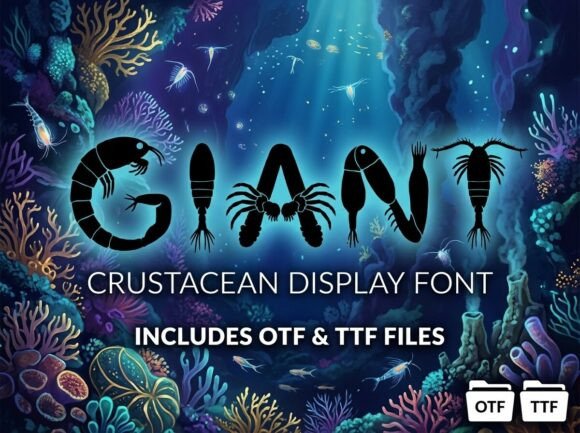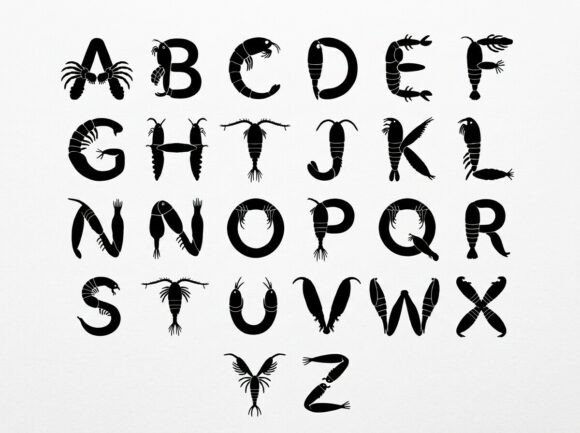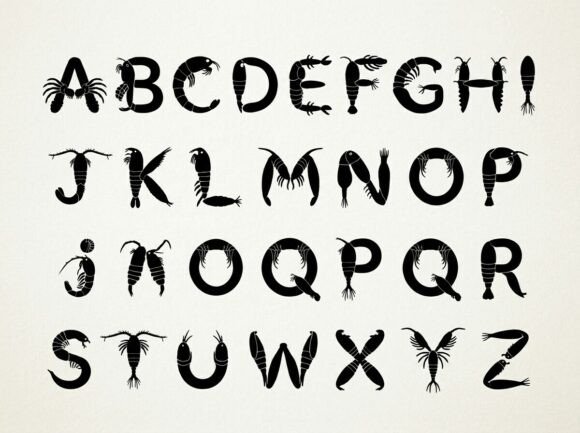
The Giant Font: A Decorative Display Font to Elevate Your Designs
Have you ever been working on a project, pouring your heart and soul into every detail, only to get stuck on one thing: the font? I remember a particularly frustrating experience when I was designing a logo for a client. I wanted something bold, eye-catching, and unique, but every font I tried seemed to scream “boring” or “overused.” That’s when I stumbled upon the Giant Font, and it changed the game.
This stunning decorative display font is designed to be the center of attention, and for good reason. With its unique artistic elements and strong visual personality, it’s perfect for creators who want to break away from the ordinary. In this article, we’ll dive into the world of Giant Font, exploring its features, uses, and some practical tips on how to make the most of it.
- ✅ Unique and artistic design that’s sure to turn heads
- ✅ Versatile enough for bold headlines, artistic logos, and creative packaging
- ✅ Maintains a professional and polished finish, even at large sizes
A Few Quirks to Keep in Mind ⚠️
While the Giant Font is an amazing tool, it’s not without its limitations. Here are a few things to keep in mind:
- 🤔 This font is an ALL-CAPS (Uppercase Only) display typeface, which means it doesn’t include lowercase letters.
- 🤔 It’s specifically designed for high-impact headlines, logos, and decorative initials, so it might not be the best choice for body text or longer blocks of text.
The Story Behind Giant Font: Designer Inspiration
While the true story behind Giant Font remains a mystery, it’s easy to imagine a designer who was tired of boring, generic fonts and decided to create something bold and eye-catching. Perhaps they were inspired by street art, graffiti, or avant-garde typography. Whatever the inspiration, the result is a font that’s sure to turn heads.
Q: Is Giant Font suitable for body text?
A: No, Giant Font is specifically designed for high-impact headlines, logos, and decorative initials. It’s not recommended for body text or longer blocks of text.
Q: Does Giant Font include OpenType features?
A: Yes, Giant Font includes OpenType features like glyphs and stylistic alternates, which can be used to add more personality to your design.